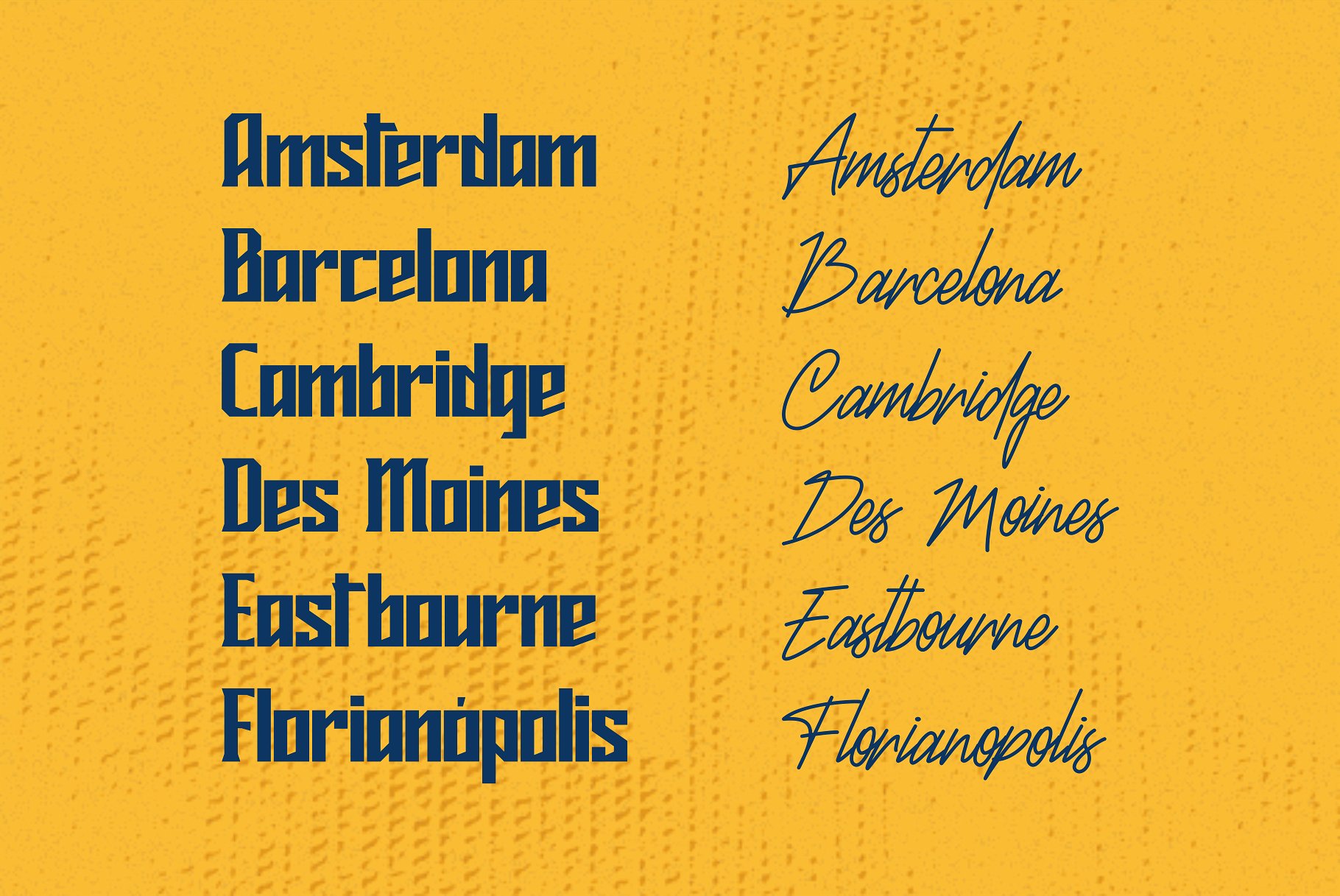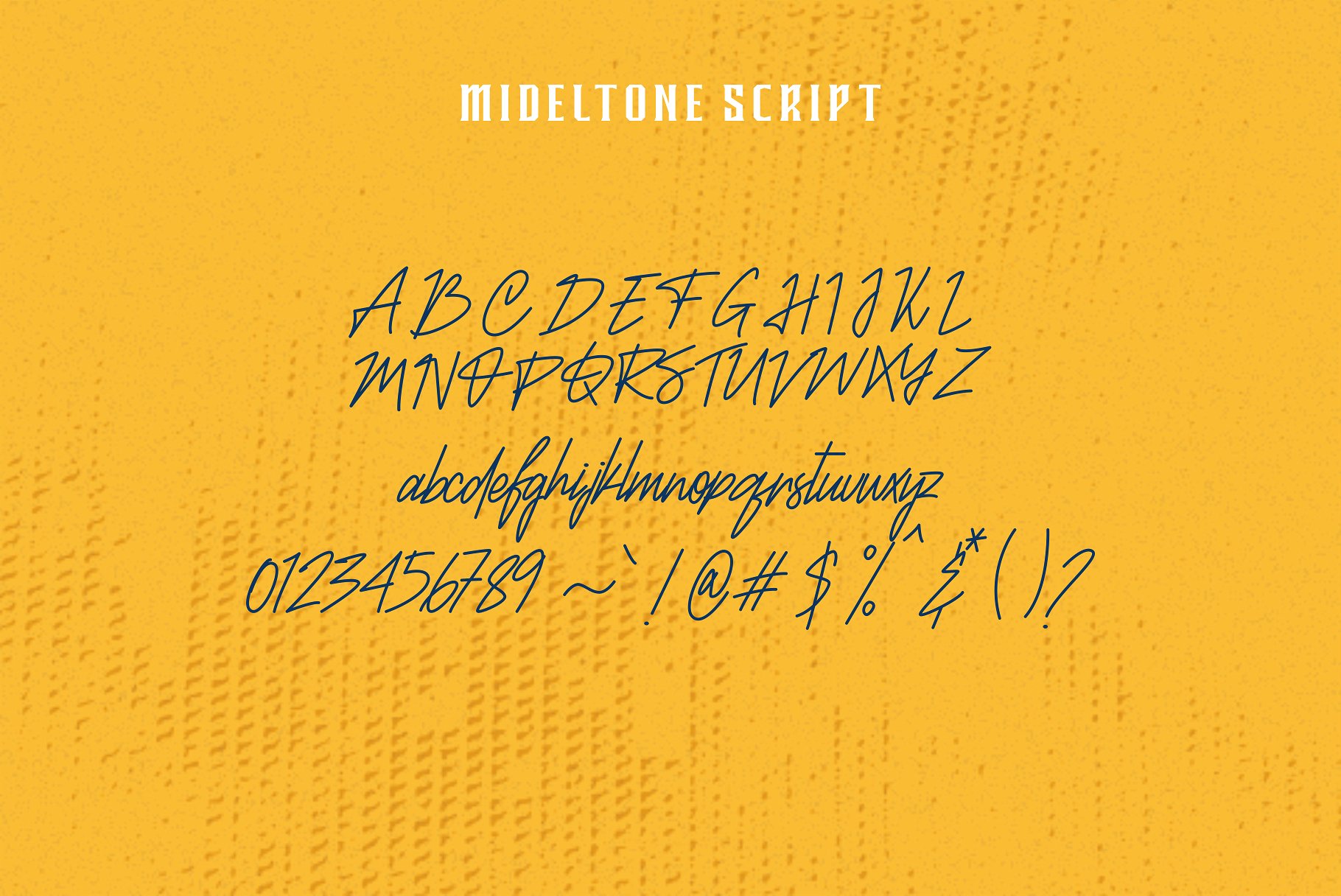
Mideltone Font Duo
Mideltone Font Duo – Free Demo
Hi Ladies and Gentleman ! This is a beautiful font duo that combines two trends (sleek sans serif caps and messy whimsical scripts) into one gorgeous package. Introducing Mideltone Duo Font. Mideltone duo fonts are 2 different fonts in one package with far different characteristics. This font is suitable for logos, posters, quotes, product labels, and other designs.